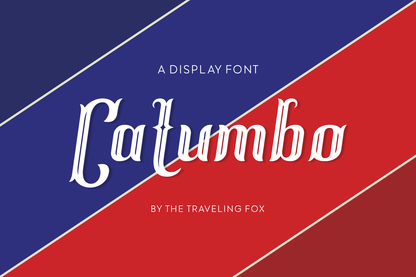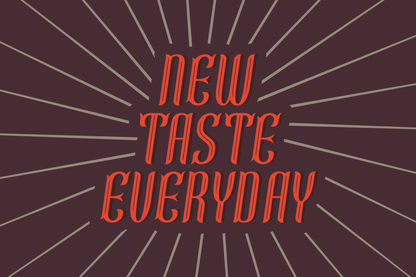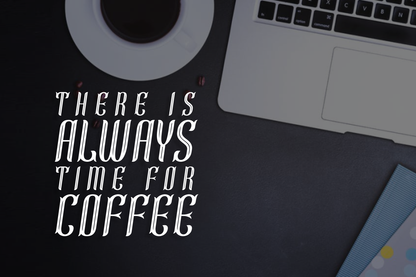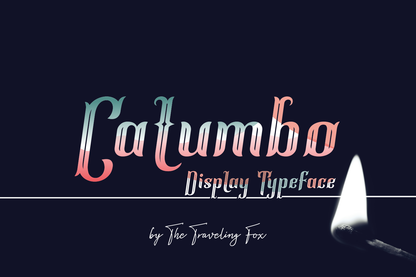
Catumbo is a classical decorative display font.
The Catumbo font is great for creating unique, distinctive designs. Its ornate details and vintage-inspired style make it perfect for posters, book covers, logos, and packaging that need a touch of elegance and character. With its bold presence and artistic flair, Catumbo brings a sense of tradition and sophistication to any project, helping your work stand out with timeless appeal.